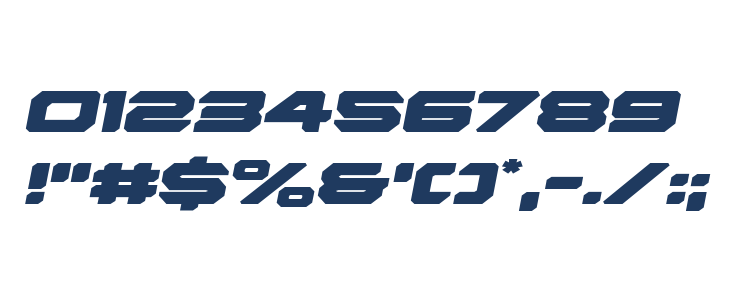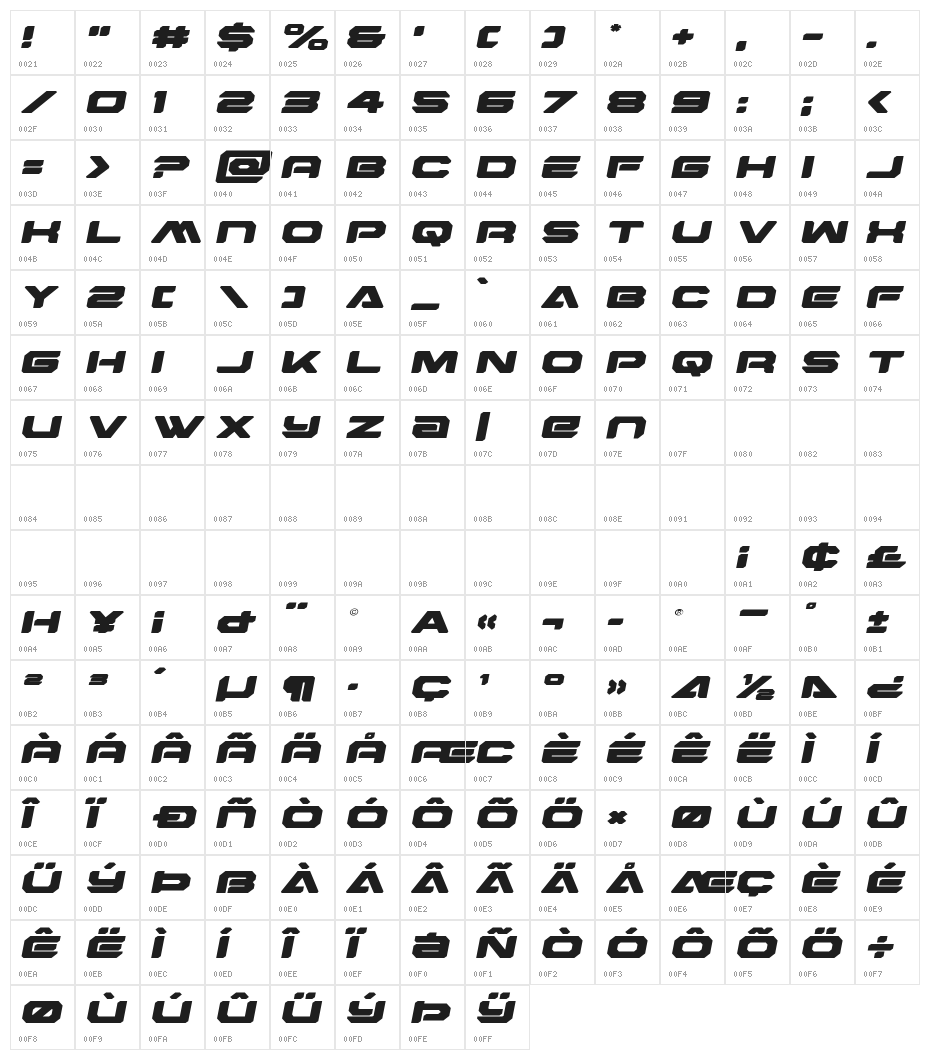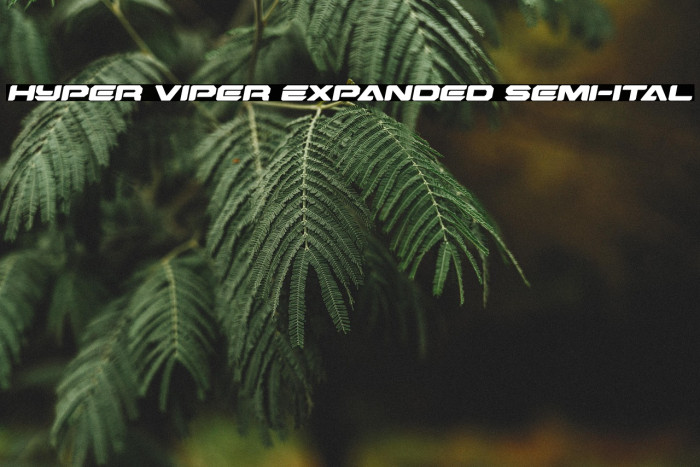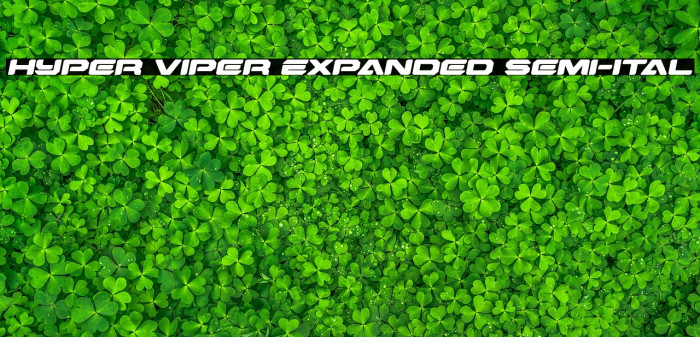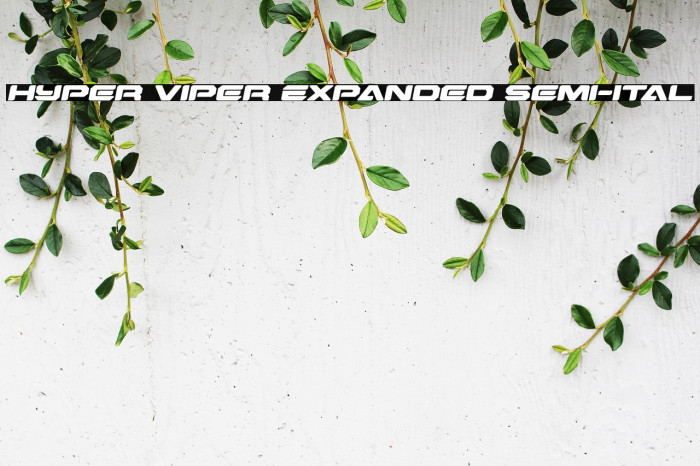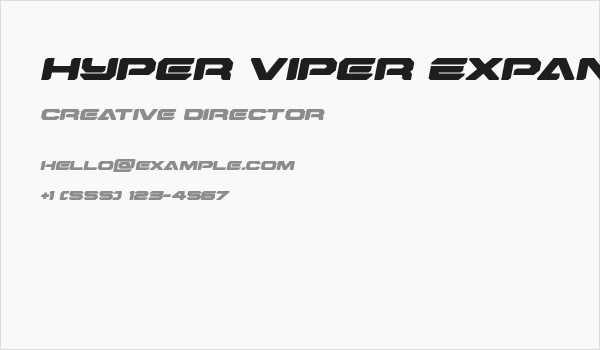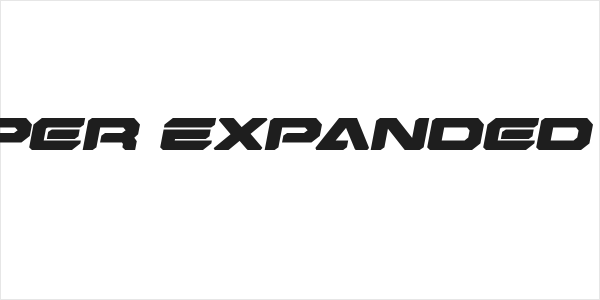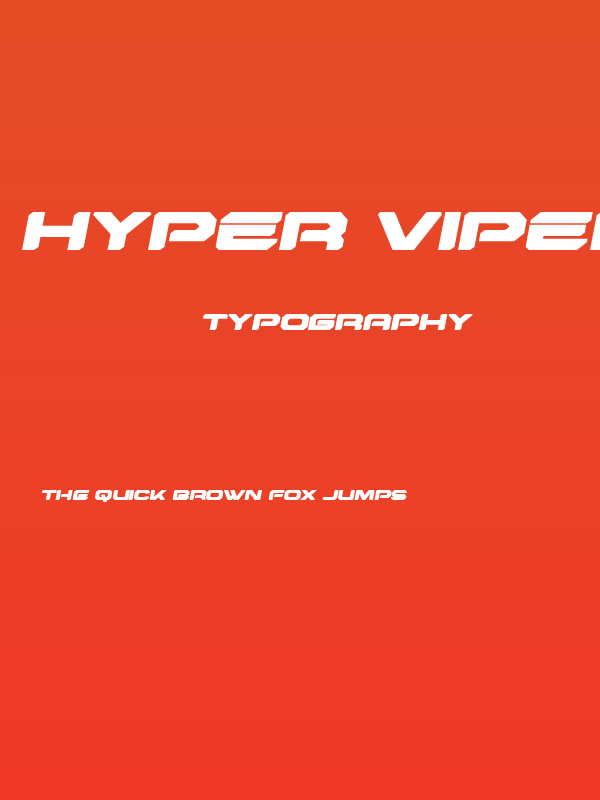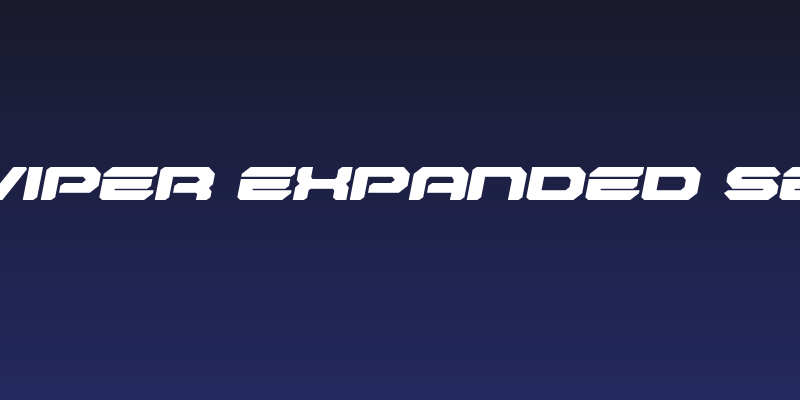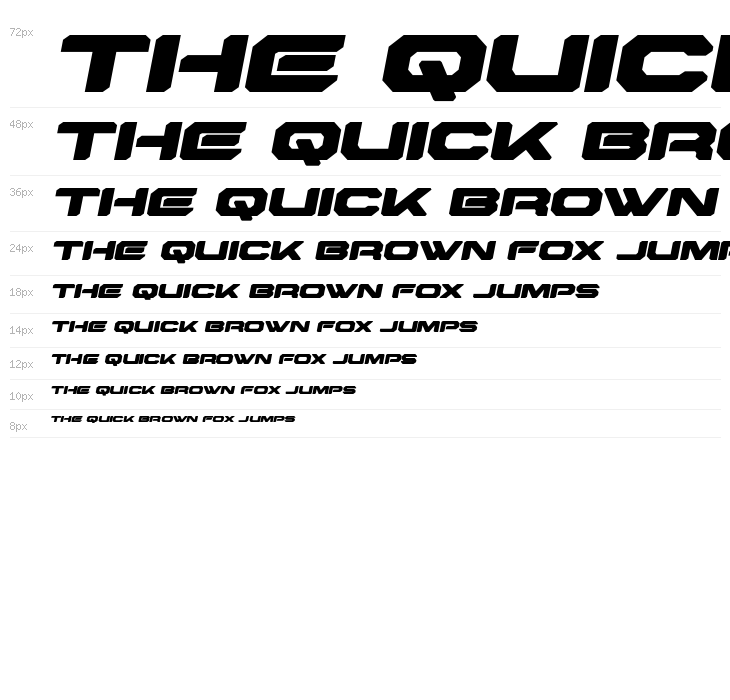
Hyper Viper Expanded Semi-Ital Font
Hyper Viper Expanded Semi-Ital Description
This font features a bold and futuristic design with a distinctly angular and geometric style. The characters are expanded and semi-italicized, giving them a dynamic and forward-leaning appearance. The strokes are thick and consistent, providing a strong visual impact. The font's expanded width enhances readability while maintaining a unique aesthetic. The overall style is modern and sleek, suitable for projects that require a cutting-edge look. The characters are evenly spaced, contributing to a clean and organized appearance. This font is ideal for creating attention-grabbing headlines, logos, and branding materials that demand a contemporary and assertive presence.
| Proposed Projects | Ideal for futuristic branding, tech-related logos, and dynamic headlines. |